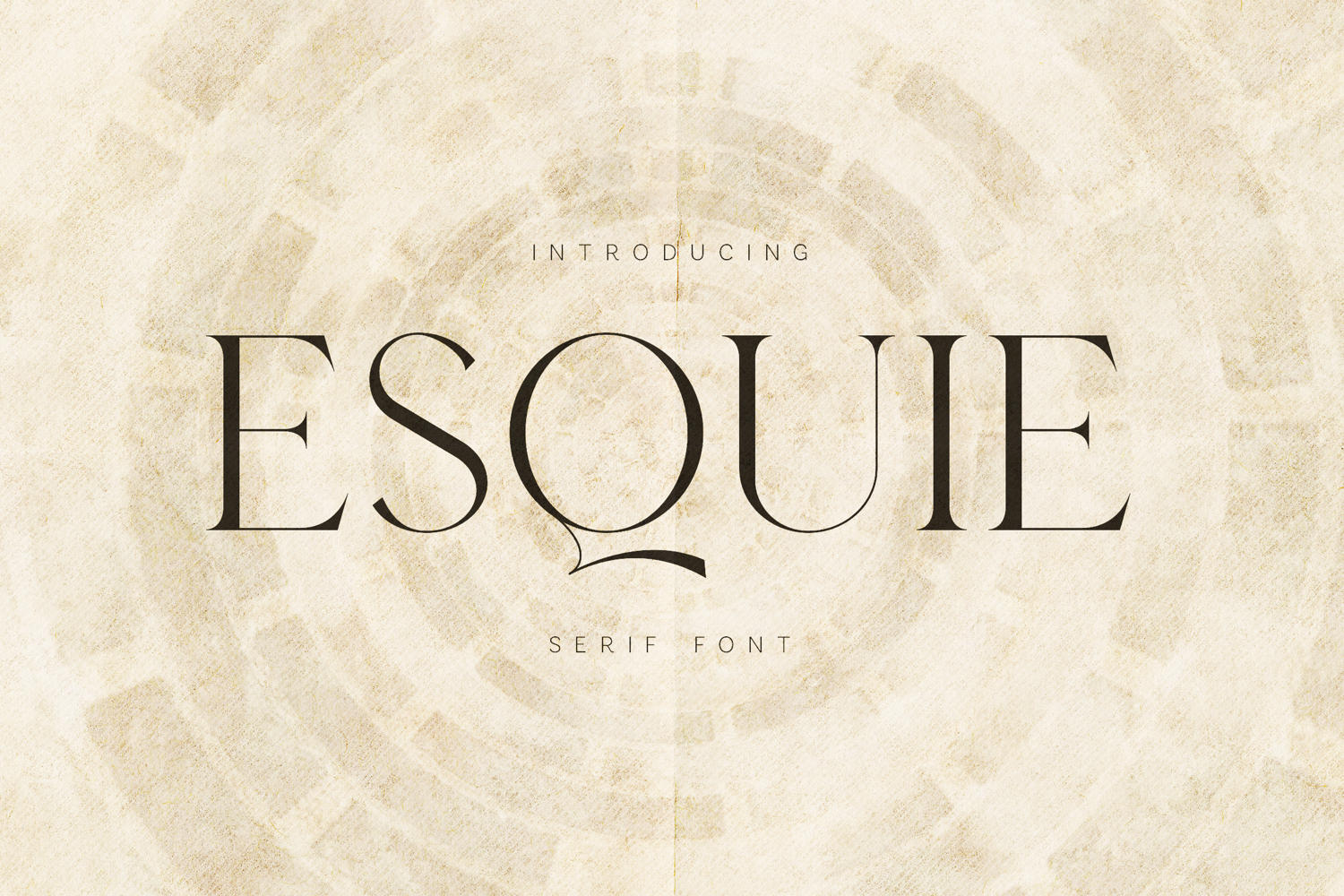
Esque Elegant Modern Serif Font
Esque is an elegant modern serif font designed with refined proportions, delicate contrast, and sophisticated letterforms. The typeface blends classic serif elegance with contemporary minimal structure, creating a timeless typography style suitable for modern design environments.
The character shapes feature graceful curves, sharp serifs, and carefully balanced spacing, giving the font a refined and premium appearance. The distinctive letterforms provide visual personality while maintaining excellent readability across a wide range of typographic layouts.
Esque is particularly well suited for branding systems, logo design, editorial layouts, magazine titles, packaging design, posters, luxury typography compositions, visual identity design, and creative projects that require an elegant serif style.
The font includes uppercase characters, lowercase characters, numerals, punctuation, symbols, and extended multilingual support, allowing designers to create typography that works across many international languages and design contexts.
Its balanced structure allows Esque to perform beautifully in both large headline typography and refined text compositions, offering versatility for modern design work.
With its combination of modern refinement and timeless serif elegance, Esque provides a versatile typeface designed to elevate contemporary typography and visual identity projects.